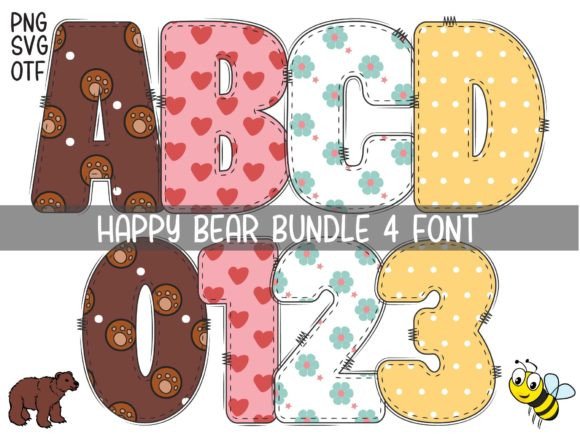
Embark on a whimsical adventure with Happy Bear Font, a captivating collection of colorful fonts designed to ignite your creativity and transform your designs into masterpieces. This enchanting font family is meticulously crafted to add a touch of playful charm and personality to your digital creations.
Indulge in the vibrant hues and cheerful characters of Happy Bear Font, the perfect choice for creating captivating monogram letters that radiate warmth and happiness. With its array of colors and playful design, Happy Bear Font brings your designs to life, making them burst with personality and charm.
Express your creativity like never before with Happy Bear Font, the ultimate tool for crafting stunning designs that stand out from the crowd. Whether you're a seasoned designer or just starting your creative journey, Happy Bear Font is the perfect companion for adding a unique and eye-catching touch to your projects.